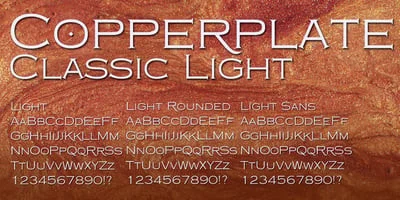
Copperplate Classic Font
Copperplate Classic Font is perfect for luxury branding, law firm identities, financial institution logos, premium business cards, formal invitations, government documents, classical book covers, and prestigious award certificates. This distinguished typeface excels in projects requiring timeless elegance and institutional authority where tradition meets professional excellence.
What makes Copperplate Classic Font exciting is its embodiment of centuries-old engraving traditions combined with modern typographic precision, creating an unparalleled sense of prestige and reliability. The font features distinctive all-capital letterforms with characteristic wide spacing and refined proportions that convey stability, trustworthiness, and established authority. Its classical character makes it perfect for organizations seeking to communicate heritage, expertise, and unwavering quality.
Copperplate Classic Font family includes multiple weights and condensed variations that provide comprehensive options for sophisticated design hierarchies. The family typically offers light, regular, and bold weights, along with condensed versions that maintain the distinctive copperplate aesthetic while offering space-efficient alternatives for various layout requirements.
Whether you're developing banking industry branding, designing legal documentation, or creating luxury product packaging, Copperplate Classic Font delivers unmatched gravitas across all professional applications. This font's institutional credibility and timeless appeal make it the preferred choice for organizations that have built their reputation on trust and excellence.
The meticulously crafted letterforms and optimal character spacing of Copperplate Classic Font ensure exceptional readability while projecting unwavering authority at any size. Its enduring design and professional heritage create lasting impressions that resonate with discerning audiences who value tradition and quality. Download Copperplate Classic Font today and establish your brand's credibility with this legendary typeface that has defined professional typography for generations.